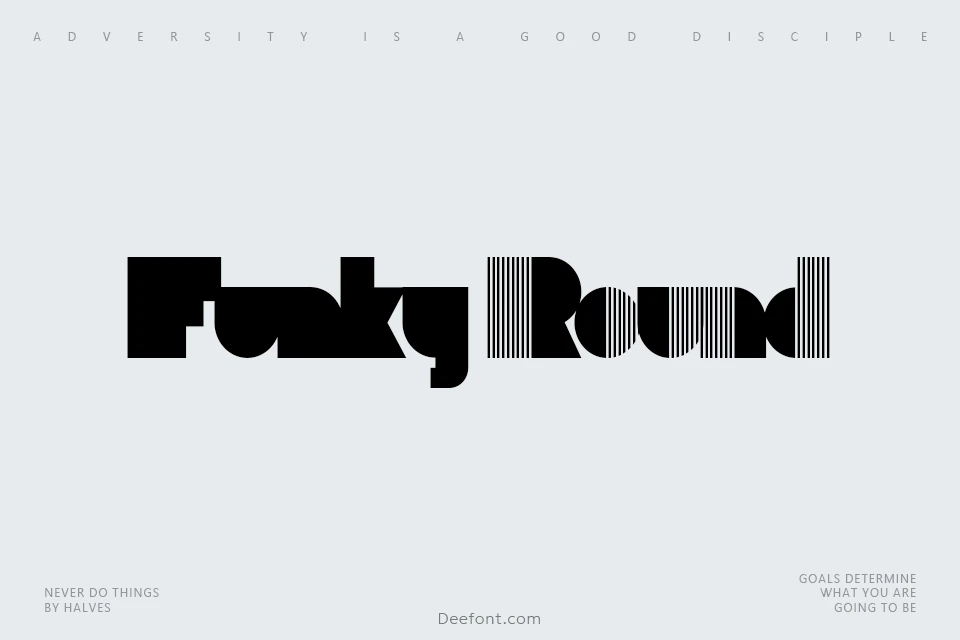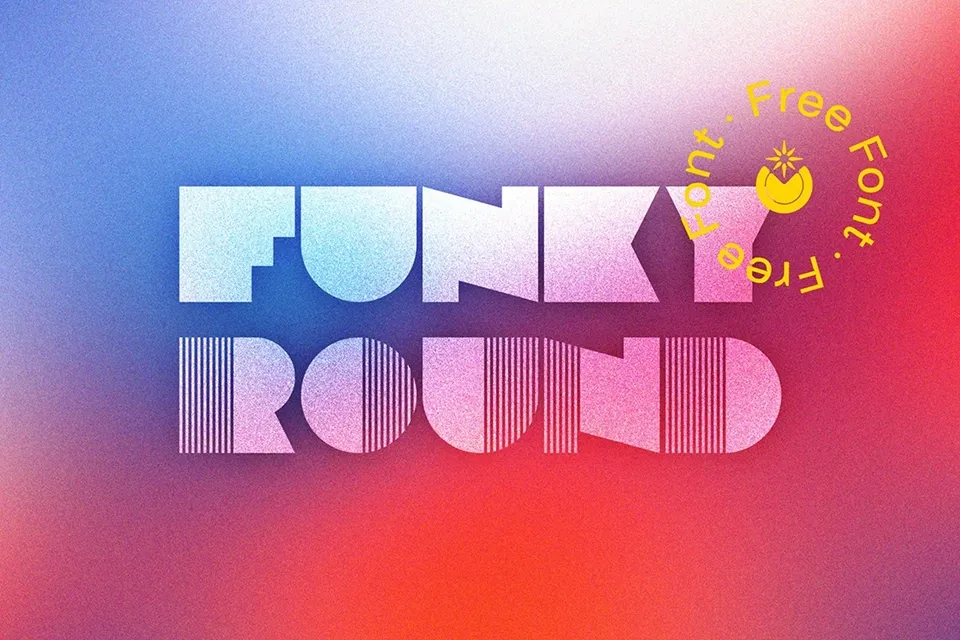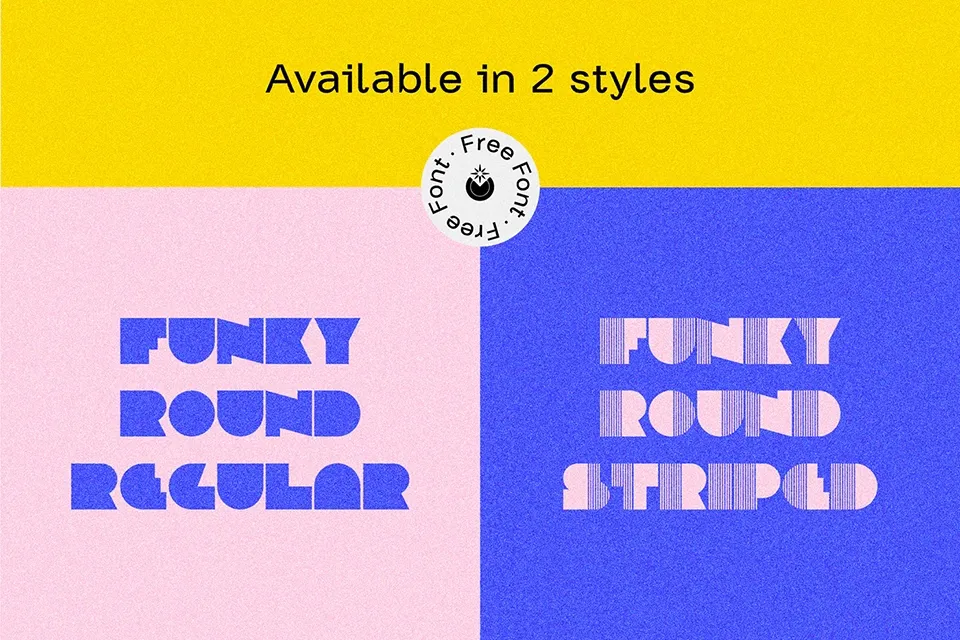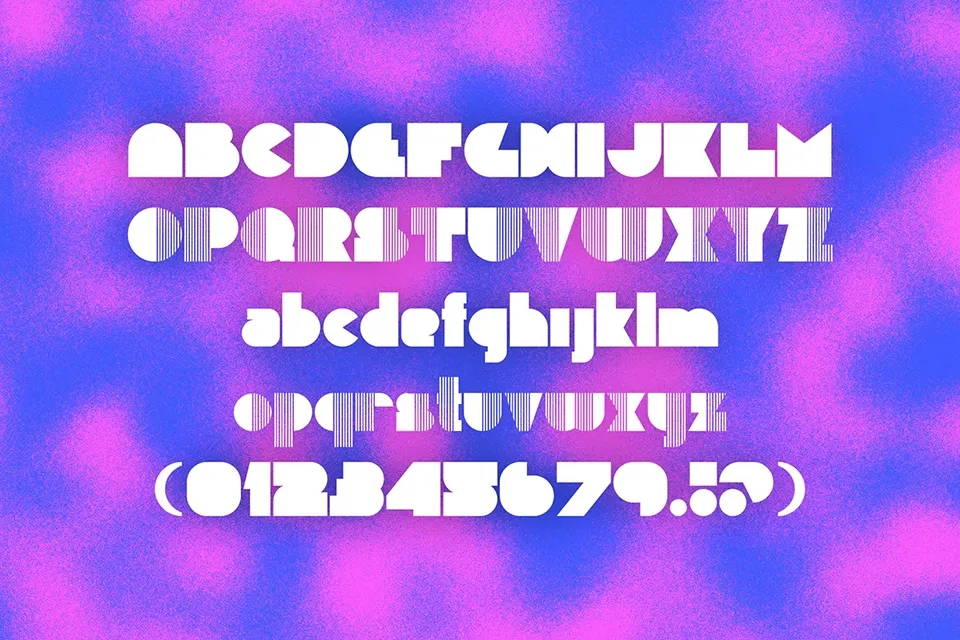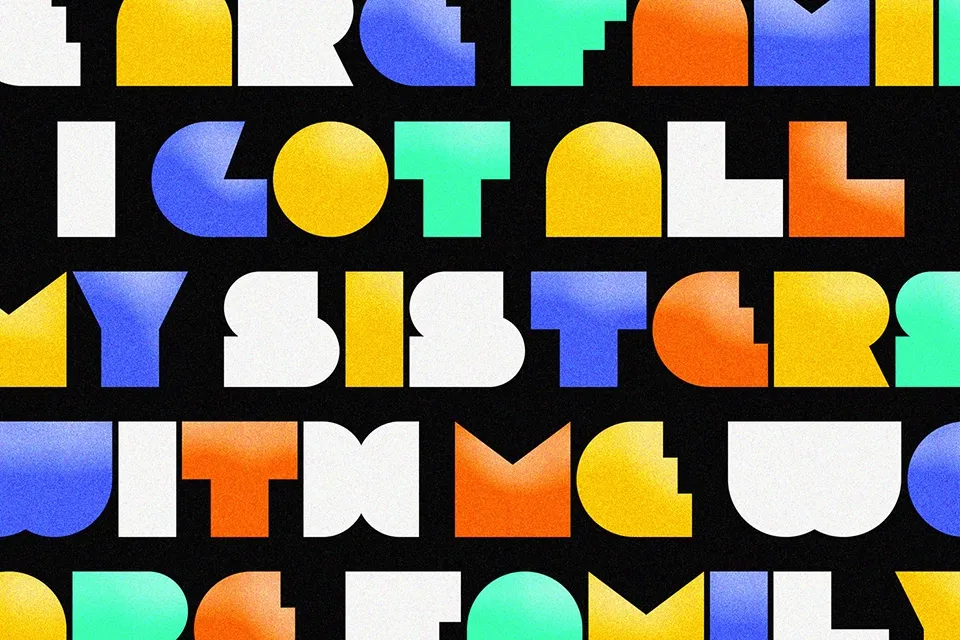
Funky Round Font
Funky Round Font is a free sans serif display font designed by Mehdi Bouhjar. Featuring two unique styles, this geometric and retro-inspired typeface is perfect for creating eye-catching titles, logotypes, and creative designs. Its playful curves and bold presence make it ideal for projects that demand a distinctive and modern look.